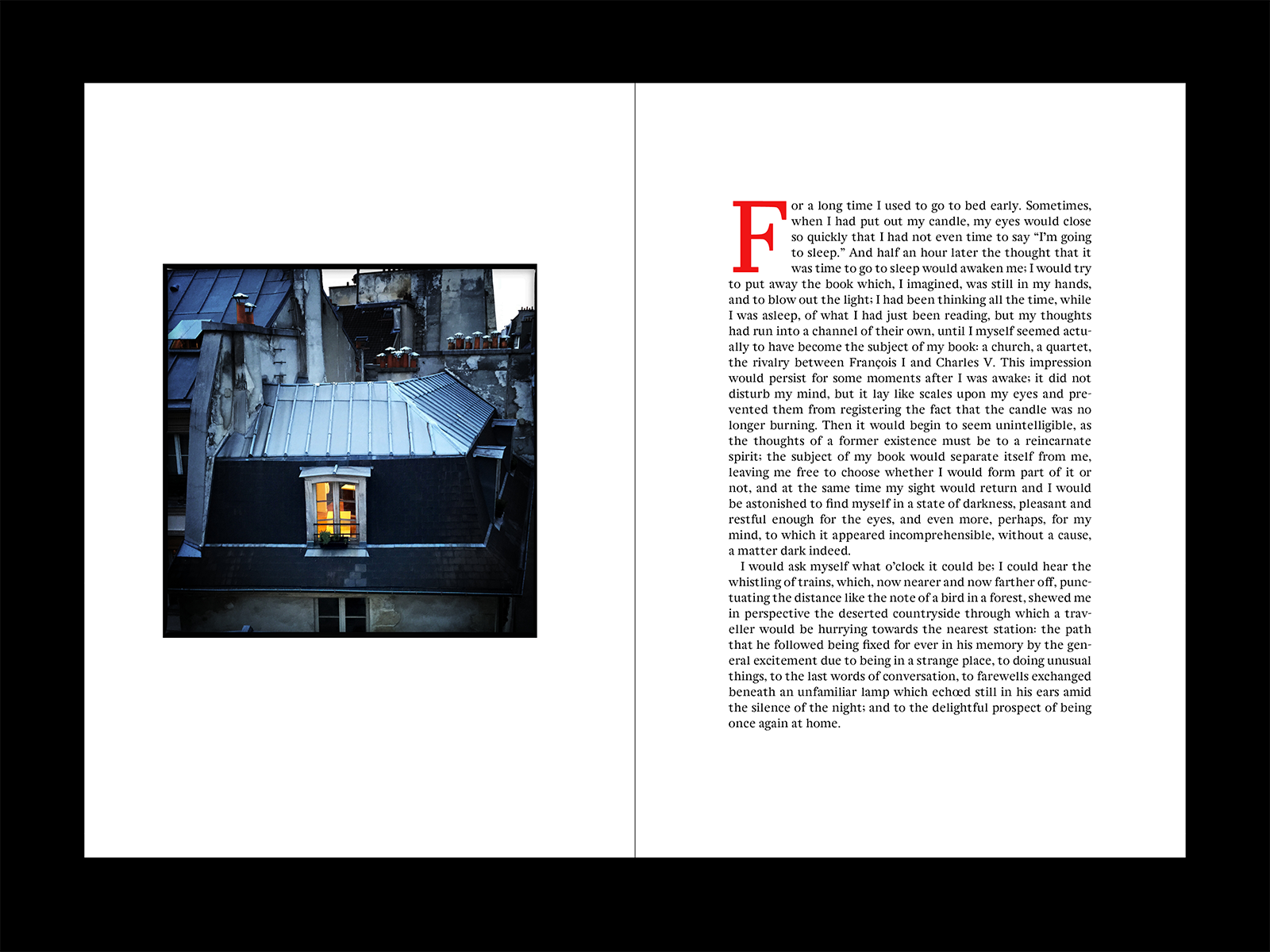
Gilly
Gilly is a slab serif Fleischmann revival font inspired by the quirkiness and whimsy of the work of the 18th century German-Dutch typographer and punchcutter Johann Michaël Fleischman. After lots of sketching and experimentation, I develop a lively single weight text font that functions nicely at small point sizes.
Joan Michaël Fleischman was born in Nuremberg in 1701, and moved to Amsterdam, where he opened his own type foundry in 1735. He was a contemporary of Baskerville and Fournier and was a expert in advanced tools and the qualities of fine steel. He pushed beyond the the frontiers of his time, cutting active typefaces famous worldwide for their sparkle. He notably worked for the publisher Johann Gottlob Immanuel Breitkopf, who was interested in improving the printing of musical notation. Fleischmann created a complex music notation font that proved unsuccessful in the marketplace, but was subsequently used to create many designs including the decorative edging on the first Dutch banknote called the “roodborstje” or robin. Fleischman also worked as an engraver, and reportedly traveled to France around 1727. The Dutch Type Library released a revival based on his designs in 1992 called DTL Fleischmann.
Taking this historical reference as a starting point, I developed several variations on classical letterforms, evolving the type elements into something I felt harmonious and expressive. With a scanned reference from the Bibliotheque Nationalle provide by Jean François Porchez, I isolated as many letterforms as I could and started to experiment, attempting to develop a vocabulary of forms. The software Glyphs was an invaluable tool, and once the learning curve leveled out, I found it to be a very well designed piece of software, with many useful features for a designer of letterforms. With the help of Malou Verlomme and Mathieu Réguer, I worked through the process, reaching several dead ends before settling on a path and direction. The missing scanned letterforms were built from the elements created from the primary source material.
My work was poetically described by Fred Smeijers as rather ‘dutchy’, which I took as a great compliment. Gilly is a nickname for Gillespie, and I feel that these letterforms, express something of the joy of learning and creation that I experienced through this intense experience.